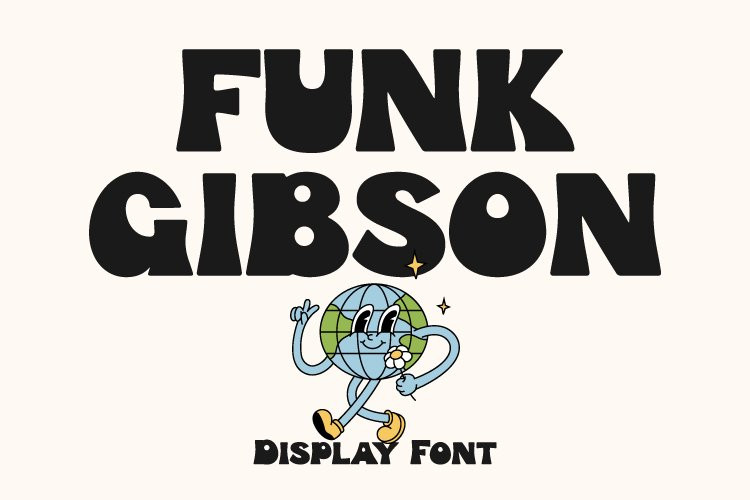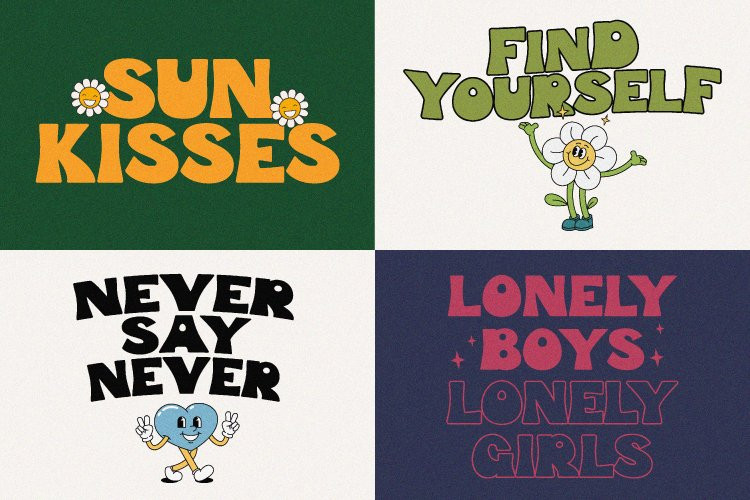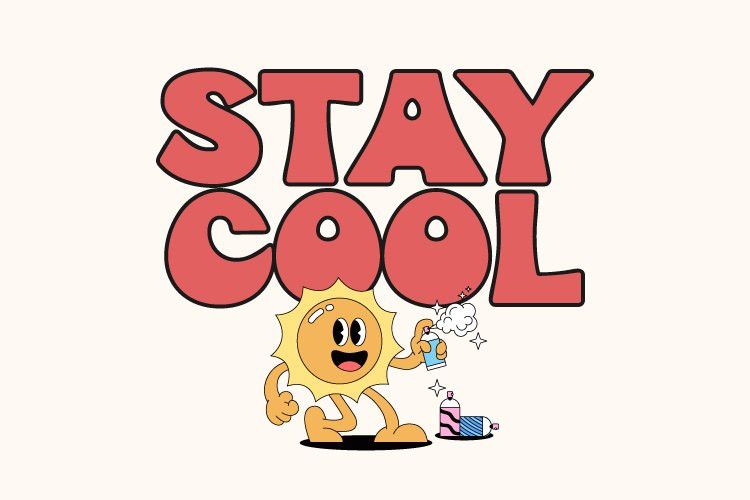
Funk Gibson Font
Expressive display fonts make your designs more fun and look fresh. This is perfect for those of you who are making design projects such as posters, crafts, branding, or merchandise.